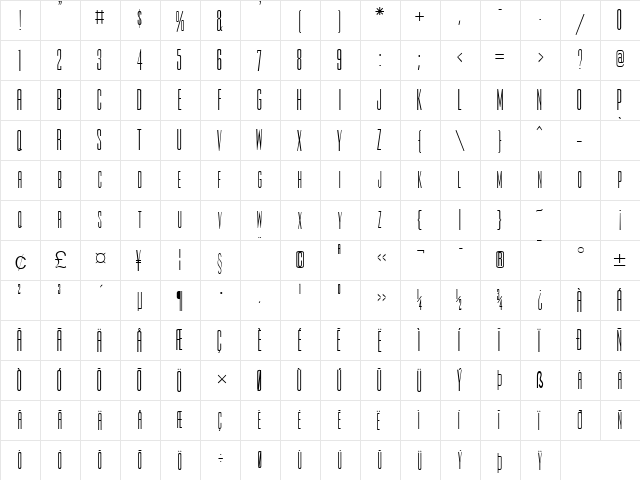
Slim-Jim Normal
Design Context for Slim-Jim Typeface
Slim-Jim takes a measured approach to typography — its balanced proportions and neutral character make it a reliable workhorse for both digital and print work.